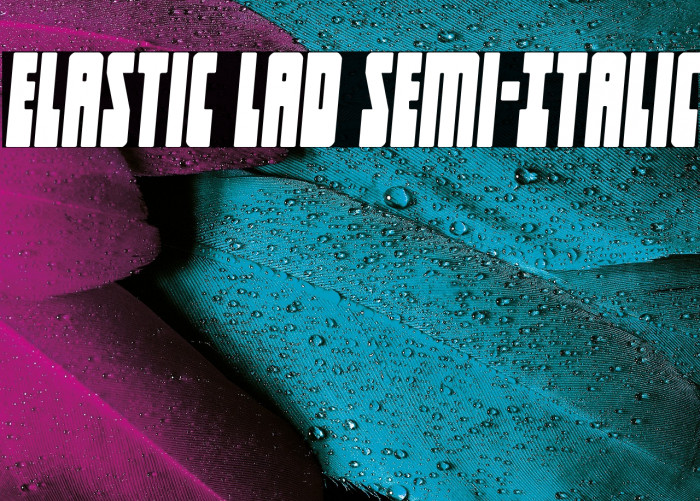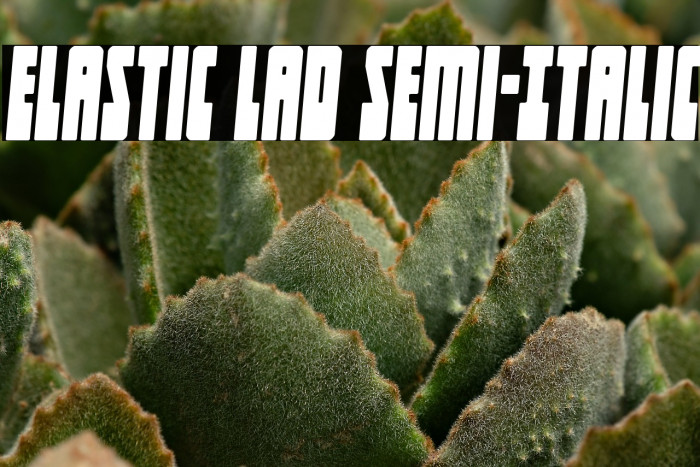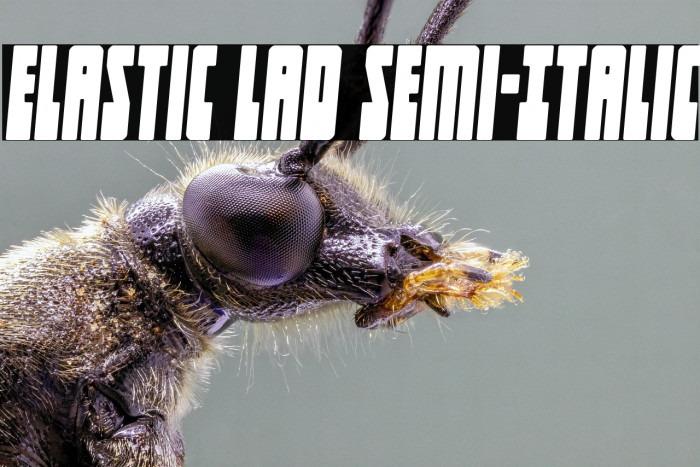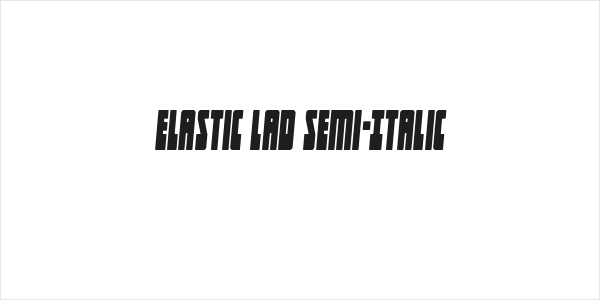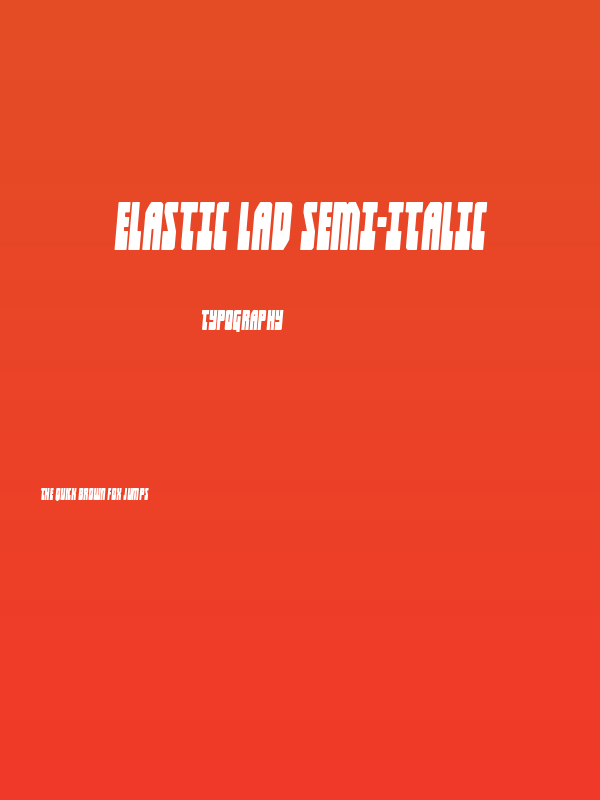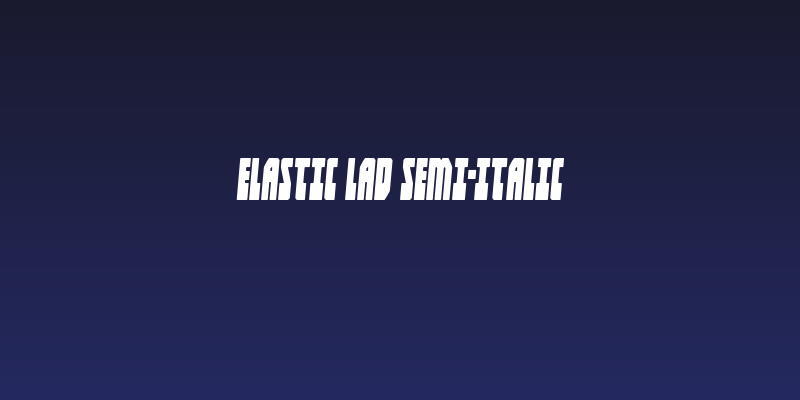
Elastic Lad Semi-Italic Font
Elastic Lad Semi-Italic Description
This font features a bold and dynamic design with a semi-italic slant, giving it a sense of movement and energy. The characters are wide and blocky, with a strong presence that makes them stand out. The uppercase and lowercase letters maintain a consistent style, with sharp angles and a slightly condensed form. The numbers and special characters follow the same bold and angular design, ensuring uniformity across all glyphs. The overall appearance is modern and impactful, making it suitable for attention-grabbing headlines and designs.
| Proposed Projects | Ideal for posters, logos, sports branding, and any project requiring a strong visual impact. |